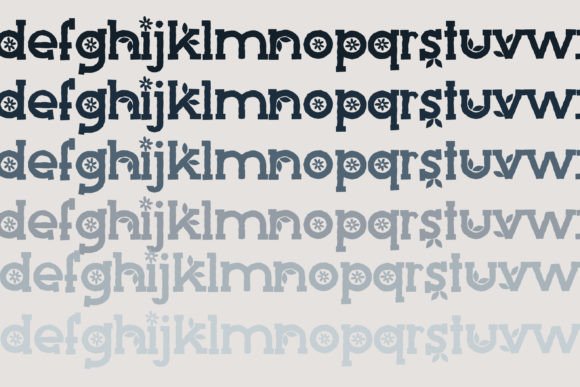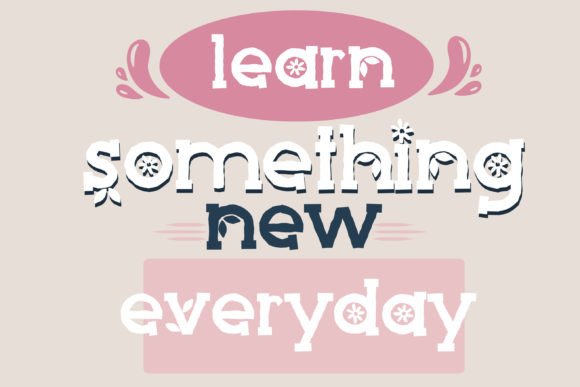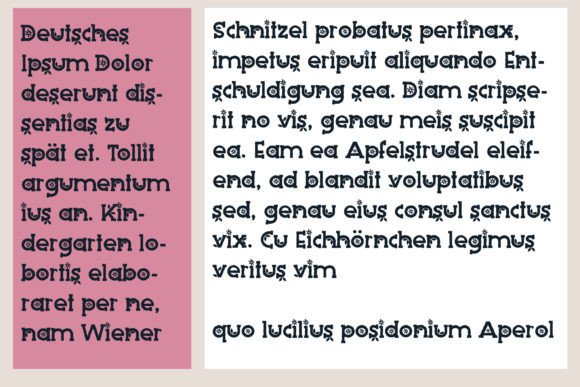
Introduction to Daisydoo Font
Daisydoo is a decorative serif font that has a charming, handmade feel.
It features playful, artistic letters with floral designs, perfect for adding a touch of creativity and nature to your projects .
Why Choose Daisydoo Font?
Daisydoo Font offers exceptional quality and versatility, making it a valuable addition to your design toolkit. Whether you’re creating for personal projects or commercial use, Daisydoo Font delivers professional results.